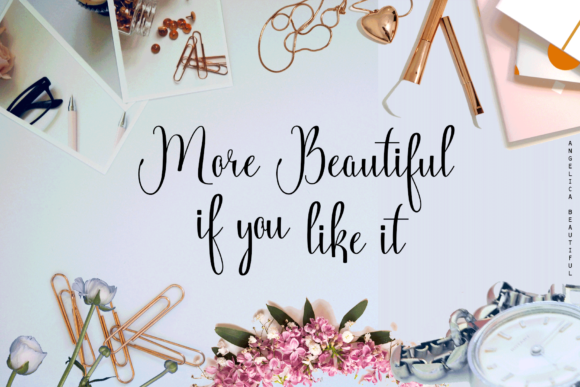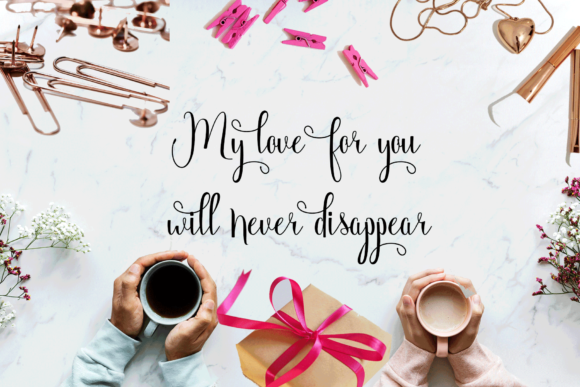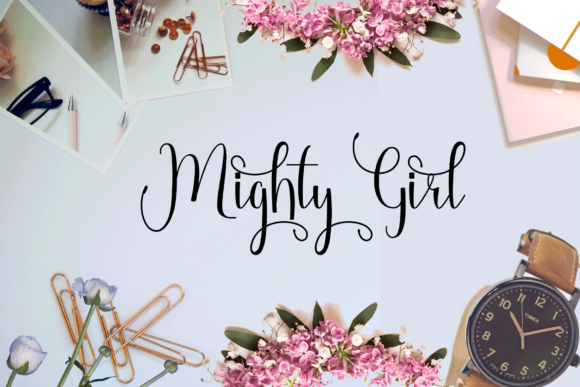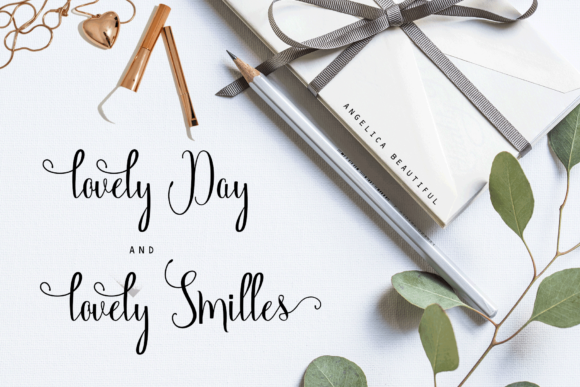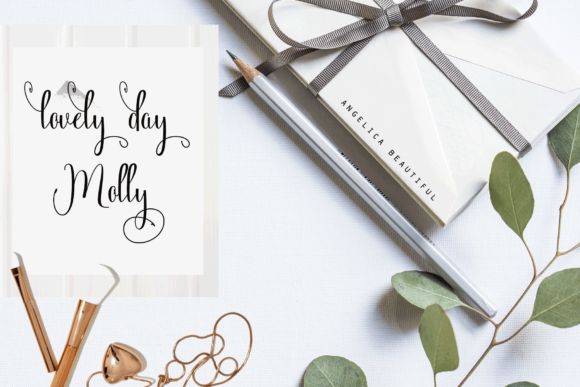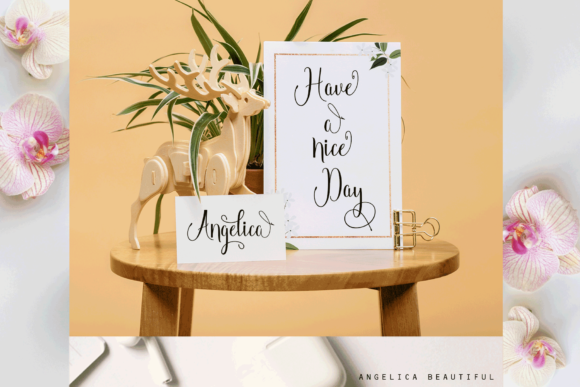
Introducing Angelica Font: The Elegant Handwritten Typeface for Creative Projects
Are you a designer, crafty DIY enthusiast, or a small business owner looking for a beautiful and elegant font to elevate your creative projects? Look no further than the Angelica Font! This stunning handwritten typeface boasts natural characteristics that make it perfect for a wide range of applications, from formal invitations to blog posts, social media graphics, and business cards.
The Beauty of Angelica Font
The Angelica Font is a true gem in the world of typography. Its elegant, cursive script exudes a sense of sophistication and refinement, making it an ideal choice for projects that require a touch of class. The font’s natural, handwritten feel gives it a warm and inviting appearance that is sure to capture the attention of your audience.
One of the standout features of the Angelica Font is its versatility. Whether you’re creating a formal invitation, a social media post, or a business card, this font adapts seamlessly to any design. Its flowing lines and delicate strokes add a touch of whimsy and romance, making it perfect for projects that require a personal touch.
The Angelica Font is a dream come true for designers and crafters who are looking for a beautiful and elegant font to enhance their creative projects. Here are just a few ways you can use this stunning typeface:
- Invitations: Create beautiful, formal invitations for weddings, baby showers, and other special occasions.
- Blogs: Add a touch of elegance to your blog posts with the Angelica Font, perfect for lifestyle, fashion, and beauty bloggers.
- Social Media: Elevate your social media graphics with the Angelica Font, ideal for creating eye-catching posts and stories.
- Business Cards: Make a lasting impression with the Angelica Font on your business cards, perfect for entrepreneurs, small business owners, and freelancers.
Why Choose Angelica Font?
So why choose the Angelica Font for your creative projects? Here are just a few reasons:
- Elegant and Sophisticated: The Angelica Font exudes a sense of refinement and sophistication, making it perfect for projects that require a touch of class.
- Versatile: This font adapts seamlessly to any design, making it perfect for a wide range of applications.
- Easy to Read: The Angelica Font is clear and easy to read, making it perfect for body text and headlines.
- Unique: The Angelica Font has a unique, handwritten feel that sets it apart from more traditional typefaces.
Tips for Using Angelica Font
Here are a few tips for getting the most out of the Angelica Font:
- Pair with a Sans-Serif Font: Pair the Angelica Font with a sans-serif font, such as Arial or Helvetica, for a beautiful contrast.
- Use for Headlines and Titles: Use the Angelica Font for headlines and titles to add a touch of elegance to your design.
| Font Name | Angelica Font |
| Author | Rt Creative |
In conclusion, the Angelica Font is a beautiful and elegant handwritten typeface that is perfect for creative projects. Its natural characteristics, versatility, and ease of use make it an ideal choice for designers, crafters, and small business owners. Whether you’re creating formal invitations, social media graphics, or business cards, the Angelica Font is sure to elevate your design and leave a lasting impression.